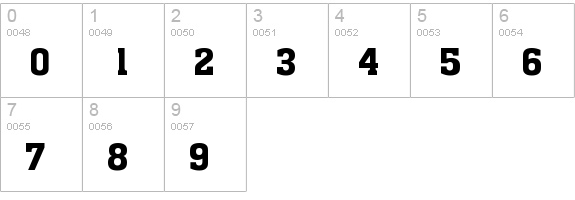
AachenDEEMed Font Details
Introducing AachenDEEMed font, a magnificent typeface that effortlessly combines elegance and modernity. With its clean lines and balanced proportions, this font exudes sophistication and professionalism, making it perfect for a wide range of design projects. AachenDEEMed font is meticulously crafted to ensure legibility and readability, making it ideal for both print and digital applications. Its versatile nature allows it to be used in various contexts, from headlines and logos to body text and branding materials. But what sets AachenDEEMed font apart is its accessibility. It is freely available to download at FontsMarket.com, allowing designers and typographers to explore its beauty and unleash their creativity without any financial constraints. This font truly embodies the spirit of inclusivity and openness in the design world. Whether you're a professional designer working on a high-profile project or a hobbyist looking to add a touch of sophistication to your personal creations, AachenDEEMed font is the perfect choice. Its timeless appeal and wide range of weights and styles make it a versatile tool that will elevate any design to new heights. So don't miss out on this incredible opportunity to enhance your typography arsenal with the enchanting AachenDEEMed font. Download it for free at FontsMarket.com today and embark on a captivating journey of design possibilities.